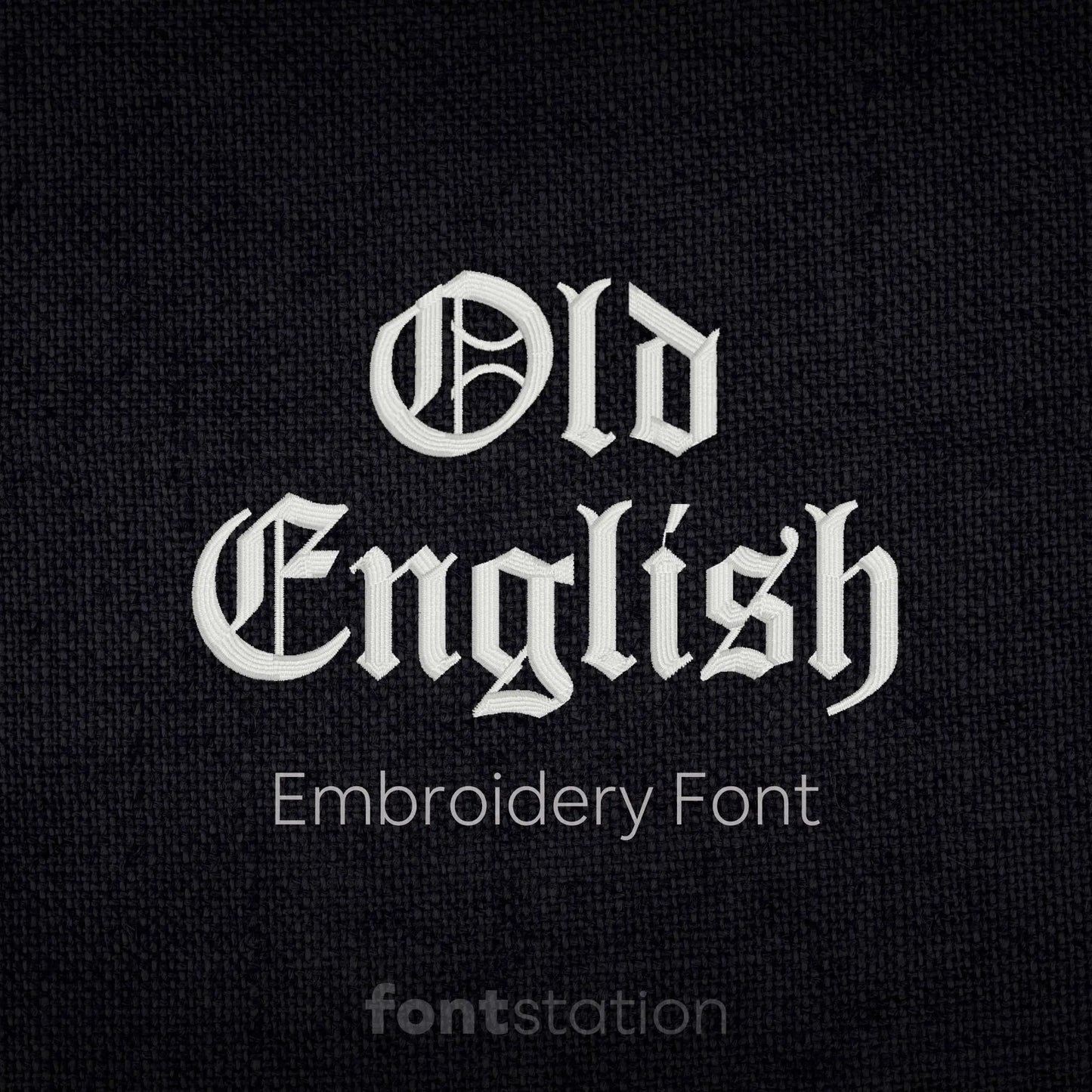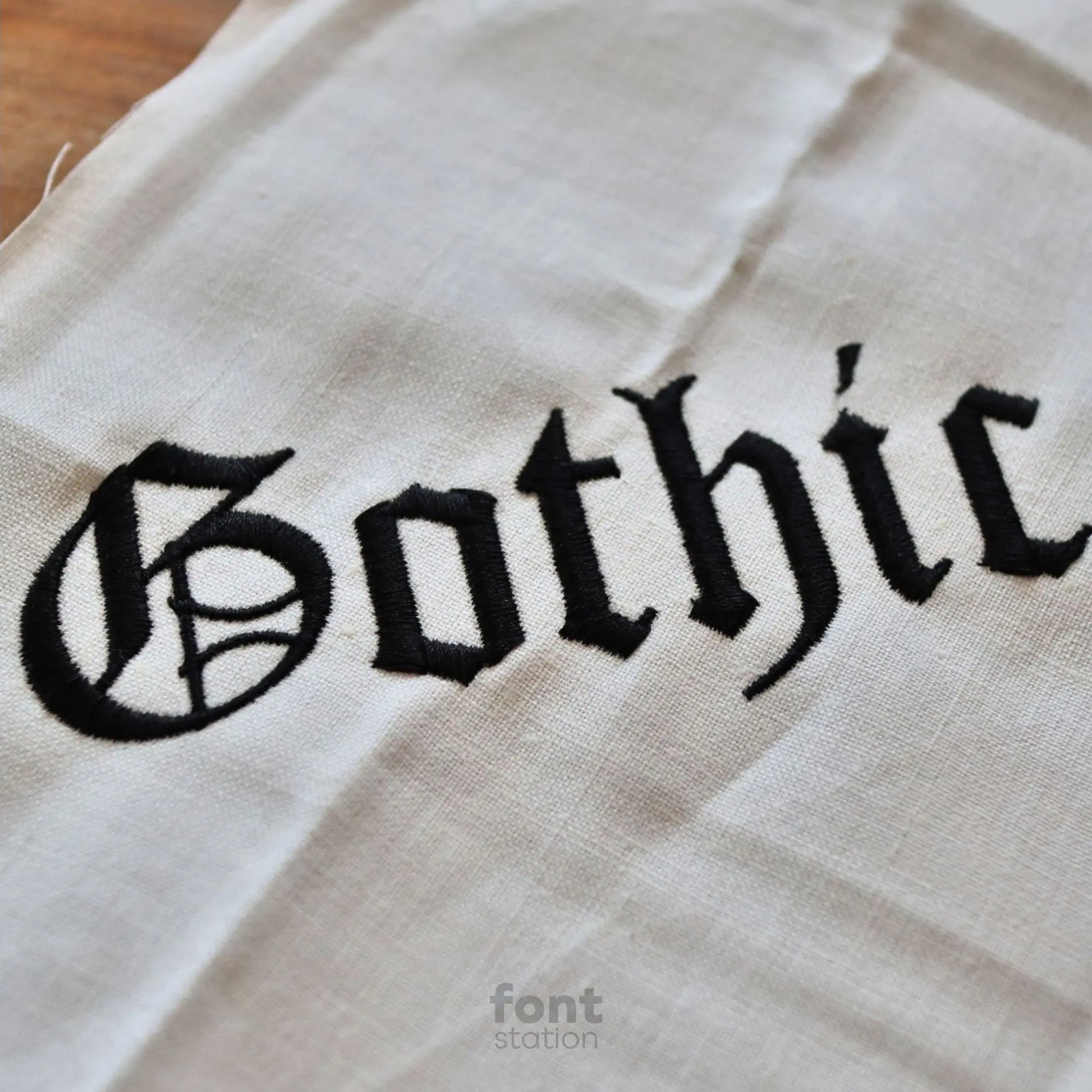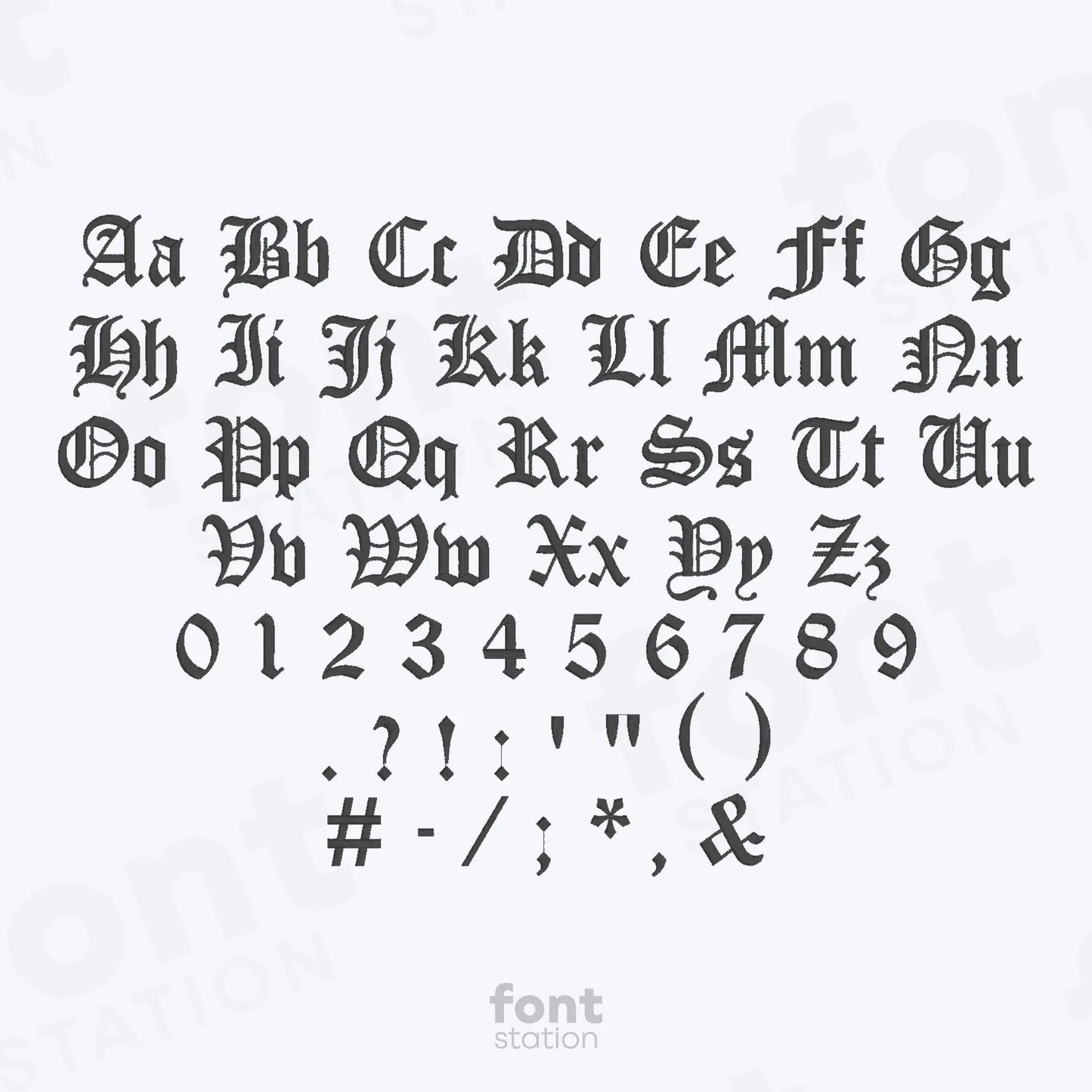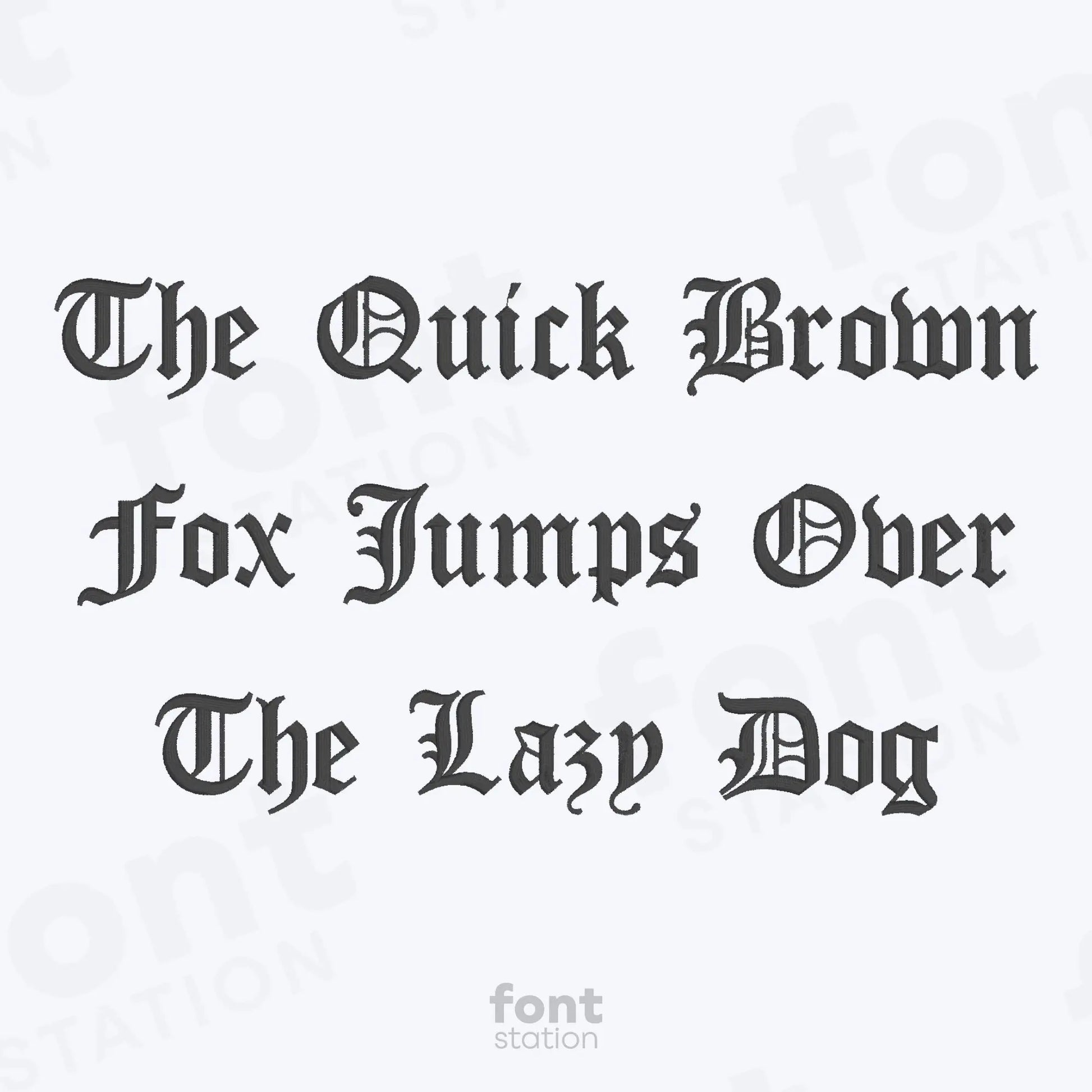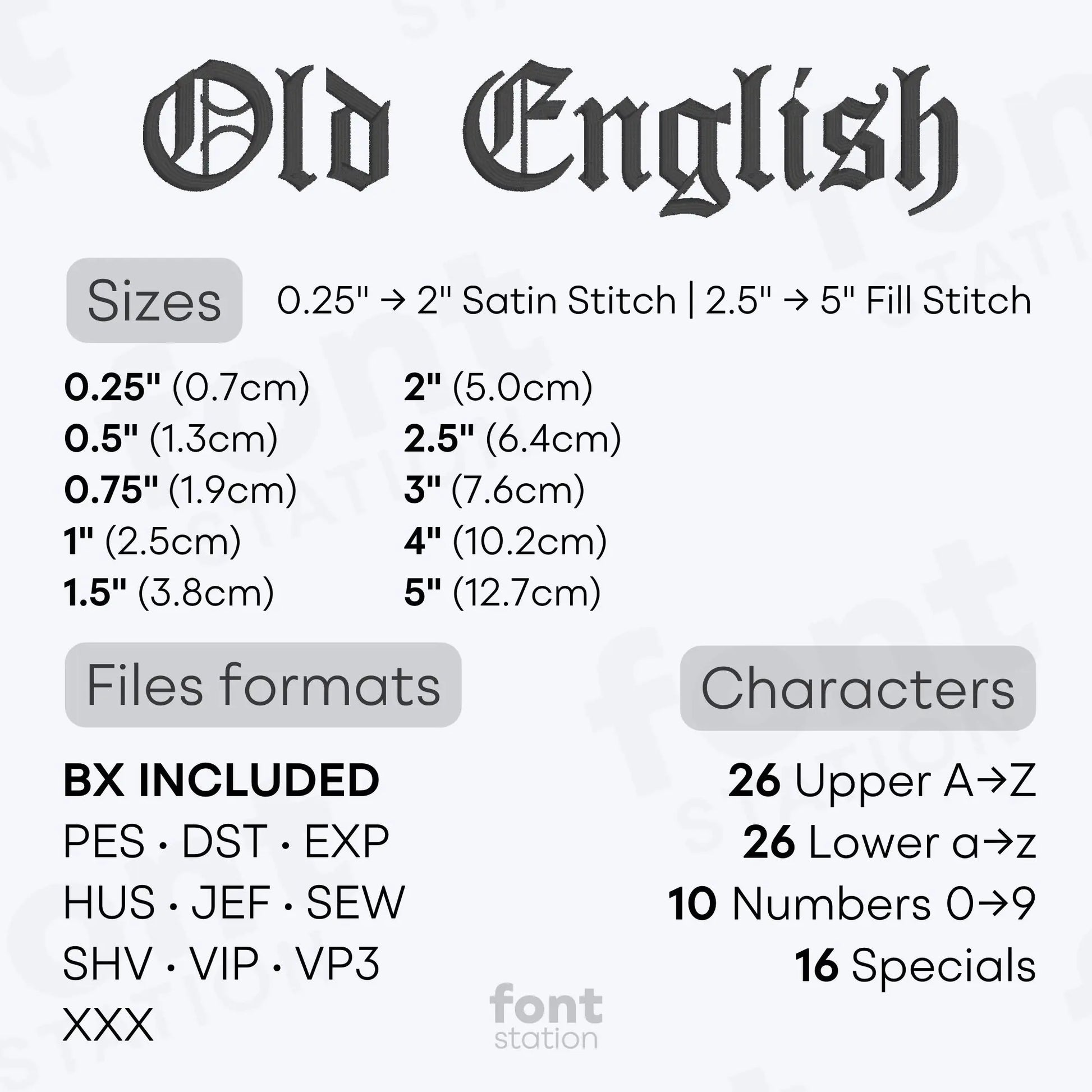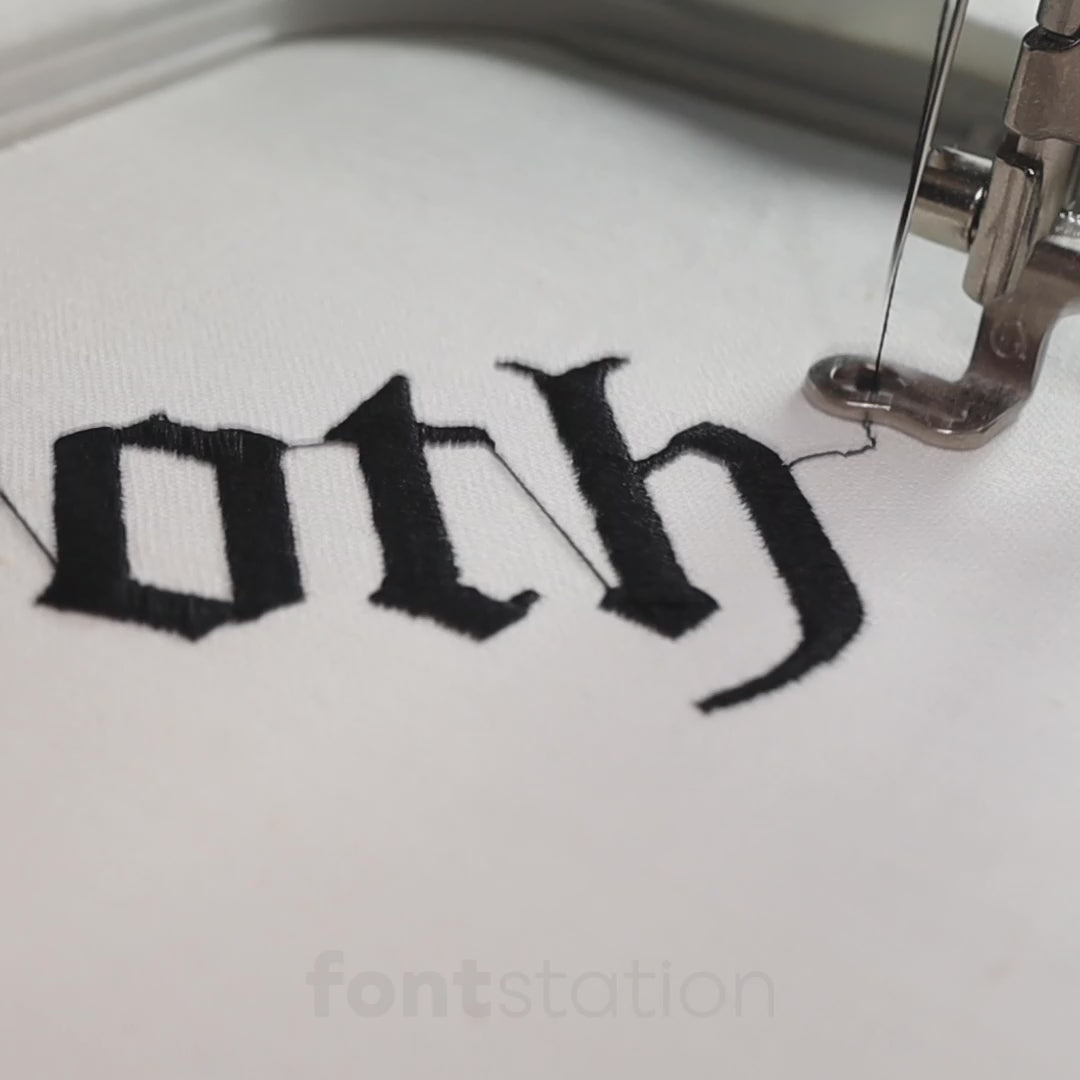
Old English Embroidery Font
Our Old English embroidery font features a Gothic, Blackletter-style alphabet perfect for bold, vintage-inspired projects. These ornate letters stitch beautifully on any embroidery machine and add dramatic flair to all your custom embroidery designs.
About the Old English Embroidery Font
Our Old English embroidery font adds timeless Gothic elegance to your embroidery projects.
This professionally digitized Old English embroidery alphabet features ornate, Blackletter-style letters that bring a classic, vintage charm to monograms, initials, and decorative designs. Ideal for personalizing garments, gifts, and accessories, this machine embroidery font is compatible with popular formats including BX, PES, DST, JEF, EXP, VP3, HUS, and XXX. Whether you're creating medieval-inspired text, Gothic lettering, or bold statement pieces, these embroidery letters stitch out cleanly and beautifully on any modern embroidery machine.
Why choose our Old English Embroidery Letters?
- Professional Quality:ย Each character has been expertly digitized to ensure clean, crisp stitching and excellent embroidery results.
- Versatility:ย Our font is suitable for a wide range of embroidery projects, from apparel and accessories to home decor and gifts.
Unlimited ways to use our Old English Embroidery Font